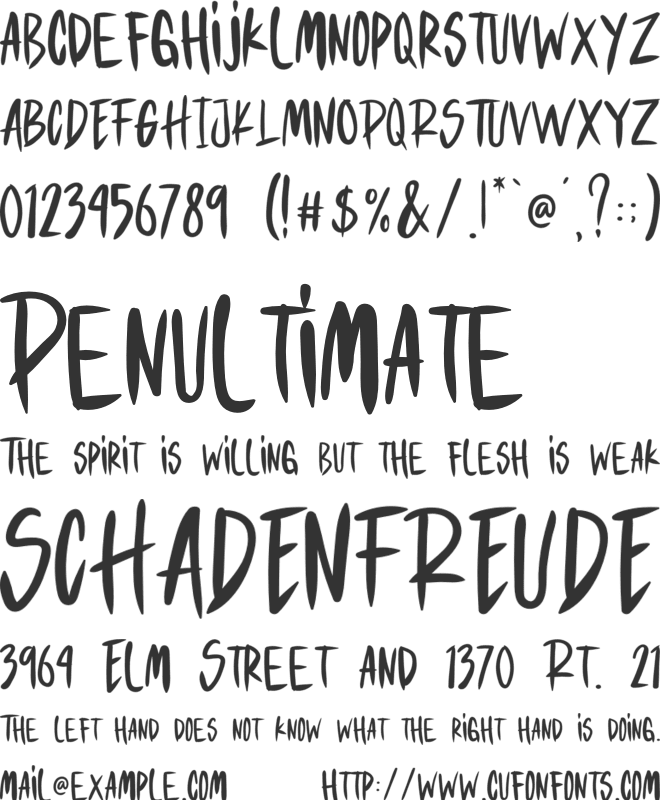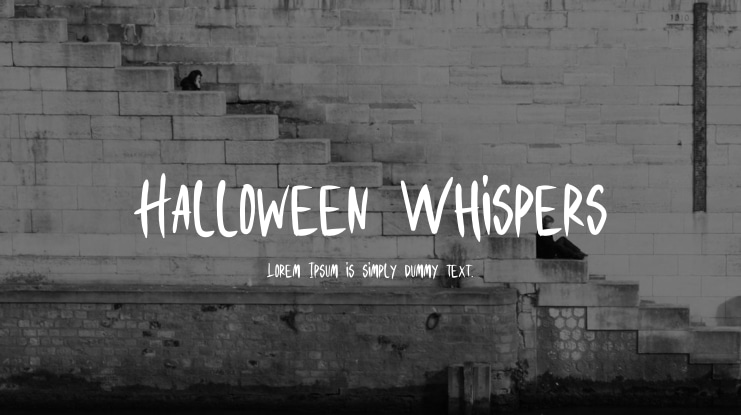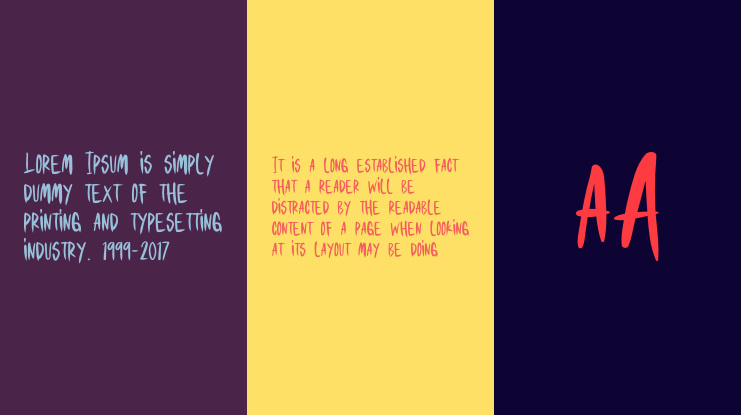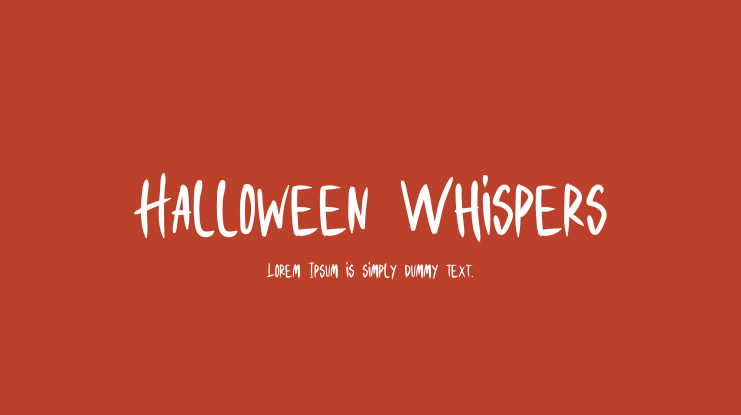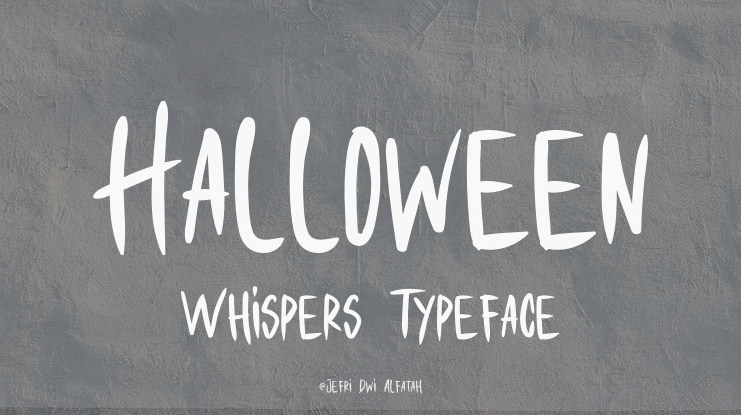
Halloween Whispers Font
Jefri Dwi Alfatah
"Halloween Whispers" is a spine-chilling font that perfectly captures the eerie essence of Halloween night. With its ghostly curves and shadowy edges, this font evokes the whispers of haunted spirits and the creaking of old, abandoned houses.